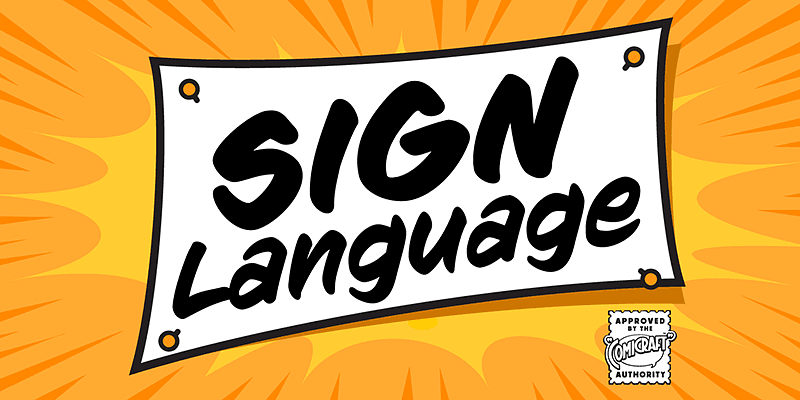
CC Sign Language specimen
handwritten
CC Sign Language
handwritten
Inspired by the paint brush lettering at our local grocery store, Sign Language is a font that can put lettuce on sale, pull you up by your bootstraps, and make the impossible possible!